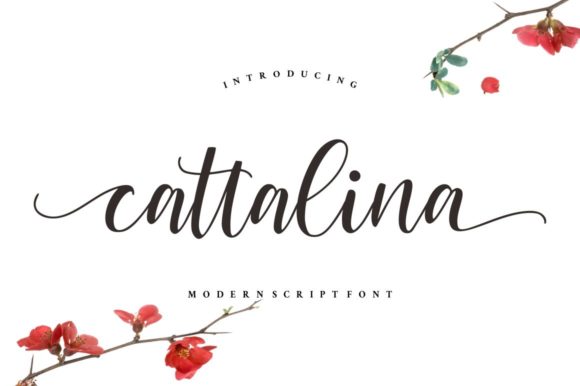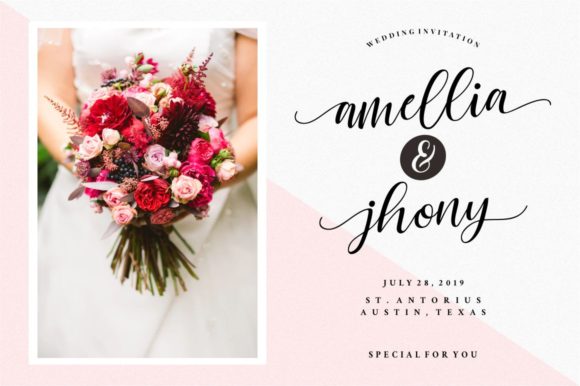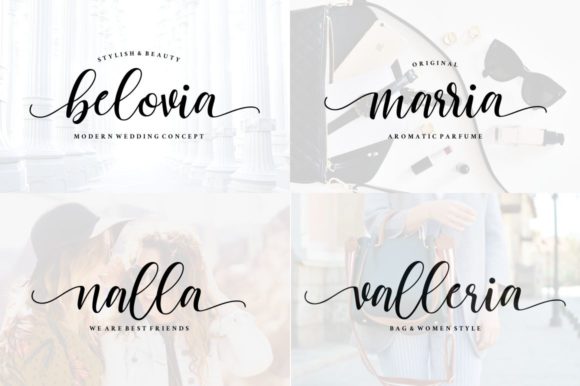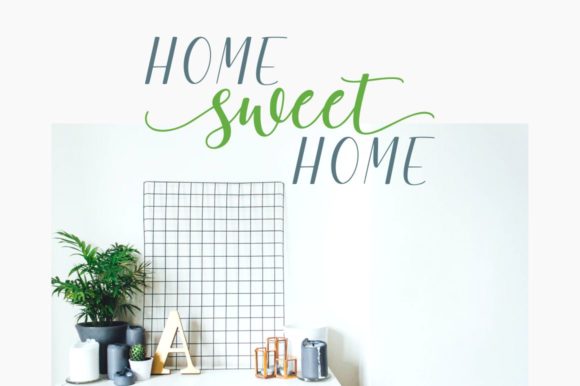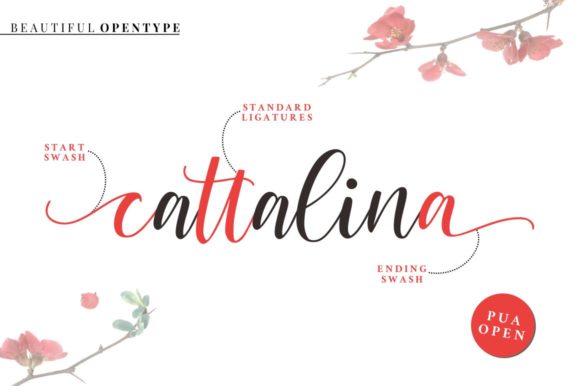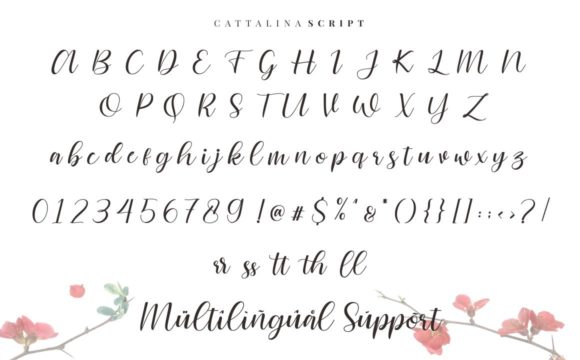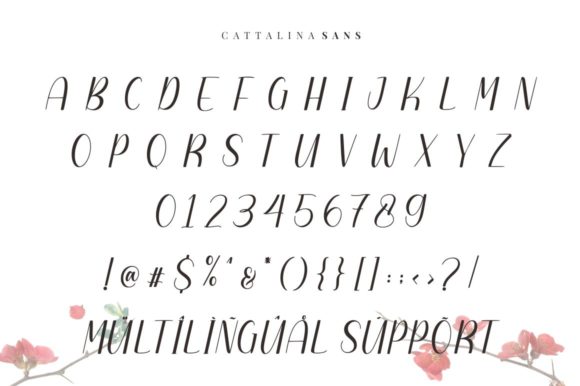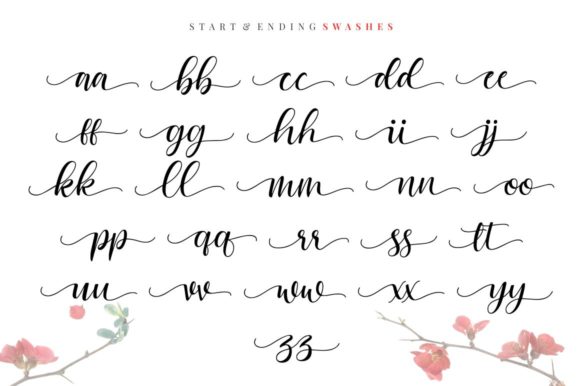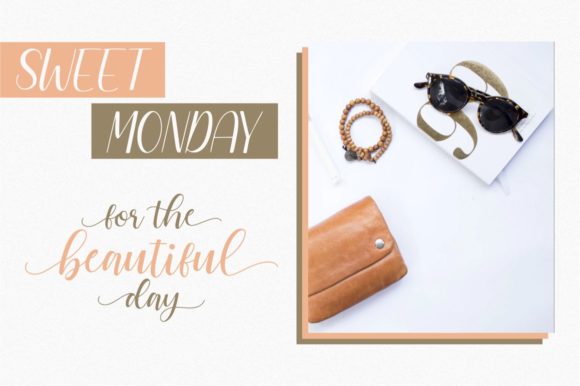
HomeScript FontsCattalina Font Script Fonts Cattalina Font FacebookXPinterestWhatsApp Cattalina Font Poster 2 Cattalina Font Poster 3 Cattalina Font Poster 4 Cattalina Font Poster 5 Cattalina Font Poster 6 Cattalina Font Poster 7 Cattalina Font Poster 8 Cattalina Font Poster 9 About Cattalina Font Cattalina a luxury font with a natural & modern handwritten feel. Great for a variety of projects! DOWNLOAD ON CREATIVE FABRICAThis font is sold and delivered by Creative Fabrica. Font Canyon may earn a commission if you buy through this link. People also explored Granile Font Burger Font Ice Cream Font REINDEER Baretto Font Interpretation Font Farmhouse Font Lockanantta Font Kontak Font 438 0 TagsCattalina Font Previous articleWonder FontNext articleBerthalia Font LEAVE A REPLY Cancel reply Comment: Please enter your comment! Name:* Please enter your name here Email:* You have entered an incorrect email address! Please enter your email address here Website: Save my name, email, and website in this browser for the next time I comment. Personal Use Free Omellia Personal Use Free Read more about this font Goodline Font Personal Use Free Read more about this font BD AsciiMax Personal Use Free Read more about this font Carved Wood Personal Use Free Read more about this font BLOG Using Fonts in Digital Marketing: Tips to Strengthen Your Brand Identity In the realm of digital marketing, every visual element plays a crucial role in shaping a brand's identity, and fonts are no exception. The... Best Fonts for YouTube Videos: Make Your Thumbnails Stand Out Where to Buy American Fonts Online in 2024 Elegant Wedding Invitation Fonts – Handwritten & Script Fonts